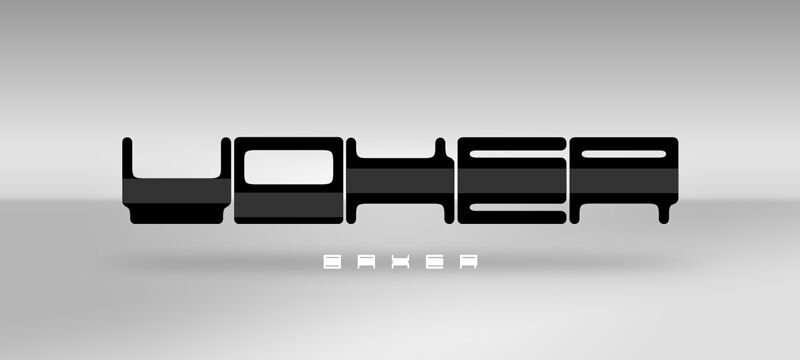
Voker Baxer by Carlos Matteoli is a free futuristic display font with broad squared forms and softly rounded corners. Wide stencil-like breaks and stretched proportions create a sleek, machine-made silhouette.
Its retro-futurist character fits science-fiction posters and electronic music artwork, particularly when lettering resembles a control panel or vehicle badge. The same industrial geometry suits gaming graphics and technology branding without intricate decoration. In editorial design, it gives magazine section openers and feature titles a convincing link to speculative hardware and engineered surfaces.